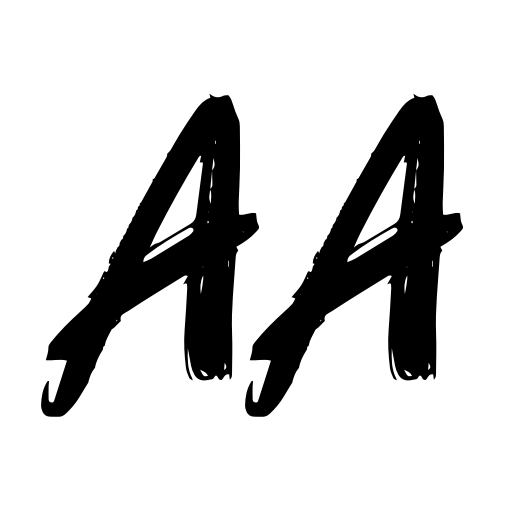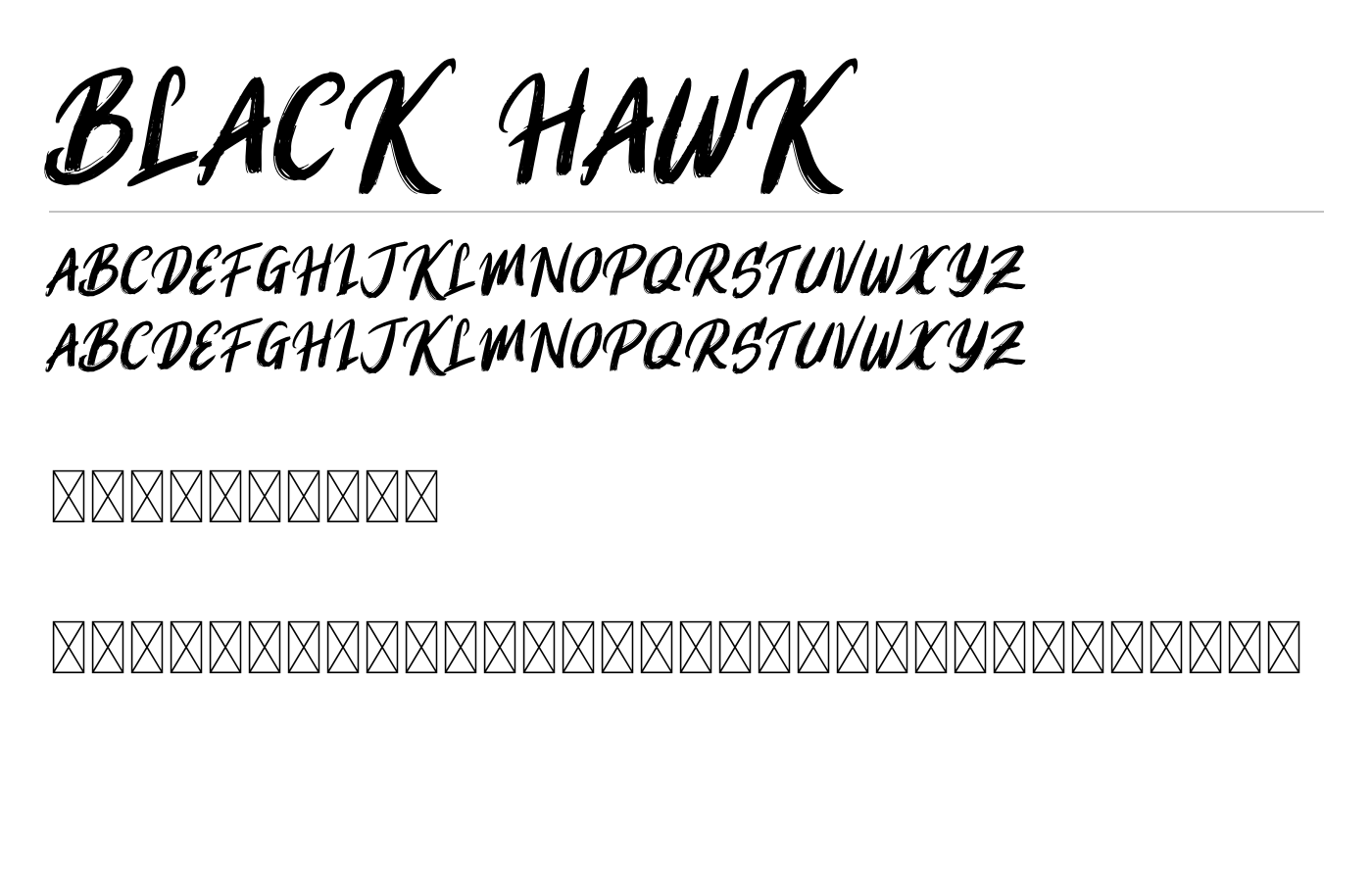
Black Hawk is a dynamic, brush script font that captures an energetic and hand-painted feel with its bold, textured strokes and casual yet confident letterforms. Its high contrast and slightly irregular brush marks make it ideal for expressive headlines, logos, and creative projects seeking a bold, artistic vibe with a modern edge. This font works well in branding and design contexts that want to convey creativity, individuality, and a lively spirit.
Black Hawk Font
About Black Hawk Font
| Font family | Black Hawk Font |
| Designer | moh taufiq |